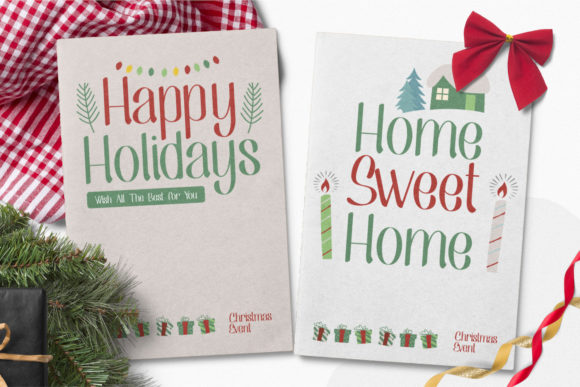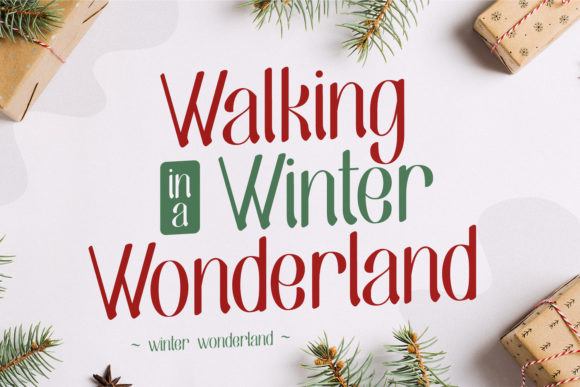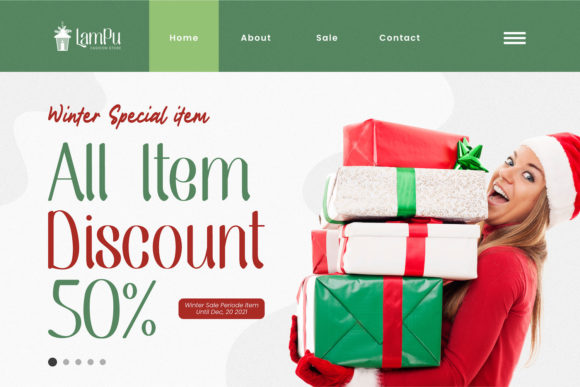
Introduction to Raindear Font
Have you ever stared at a blank sheet of paper, pencil in hand, trying to come up with the perfect phrase to express your love and gratitude? It’s moments like these that make us appreciate the beauty of handwritten fonts, like the stunning Raindear Font. This free download is a treasure trove for designers and creatives alike, adding a touch of elegance to any project.
As a valuable design resource, Raindear Font offers a high-quality, handwritten style that’s perfect for wedding invitations, thank you cards, quotes, and more. With a transparent background, you can easily overlay it on any design element, making it a versatile choice for your next creative project.
Key Features of Raindear Font
- High-quality design resource with a transparent background, ideal for creative projects.
- Includes a range of glyphs and characters, making it suitable for various design applications.
- Comes in a single font size, making it easy to use in various design projects.
- Unique, modern design that adds a touch of elegance to any creative project.
Honest Review: Raindear Font
I recently had the chance to work with the Raindear Font, and I must say it’s been a game-changer for my creative projects. This font is a great addition to any design resource, offering a high-quality, elegant look that’s perfect for a variety of applications.
Here are some things that really work well for me with the Raindear Font:
- ✨ High-quality design: The font is crisp, clean, and visually appealing, making it perfect for creative projects that require a touch of sophistication.
- ⚠️ Limited language support: The font doesn’t support as many languages as I would have liked, which can be a problem for projects that require multilingual text.
- ⚠️ Not ideal for very small text: The font looks great at larger sizes, but it can become difficult to read at smaller sizes, which can be a problem for certain design applications.
Overall, I’m really impressed with the Raindear Font. While it’s not perfect, its high-quality design and versatility make it a great addition to any design resource. I would definitely recommend it to fellow designers looking for a beautiful, free font to add to their toolkit.
Some common use cases for the Raindear Font include creating social media graphics, designing website headers, and adding text to images. Tips for getting the most out of the Raindear Font include experimenting with different font sizes and colors to create visual interest, and using the transparent background to create a sense of depth and layering.